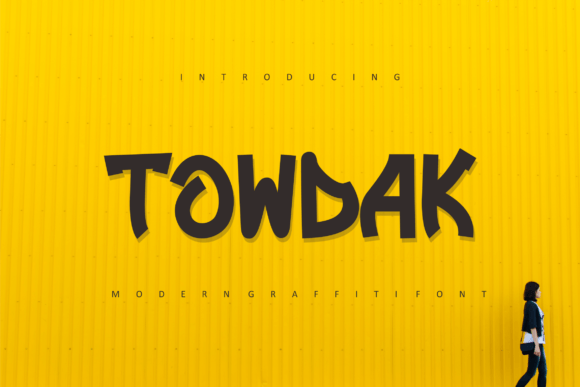
**Introducing Towdak Font: The Gateway to Tech Logo Innovation**
Prepare to witness the birth of extraordinary tech logos, fueled by the boundless creativity of Towdak Font. This modern and audacious display font is the ultimate weapon in your design arsenal, empowering you to craft logos that ignite the digital realm.
**Unleash Your Typographic Prowess**
Towdak's meticulously crafted characters dance with a captivating rhythm, defying the ordinary and embracing the remarkable. Its distinctive shapes invite you to push boundaries and explore uncharted design territories.
**Forge a Connection with Your Audience**
Each stroke of Towdak Font carries the power to resonate with your target audience. Whether you seek to convey a sense of innovation, playfulness, or cutting-edge sophistication, this font possesses the versatility to mirror your brand's essence.
**Ignite Your Imagination**
Towdak Font is not merely a collection of letters; it's an invitation to unleash your imagination. Its quirky nature nurtures creativity, enabling you to envision logos that break free from the mundane and ascend to the extraordinary.
**Empower Your Brand's Identity**
In the competitive digital landscape, your tech logo serves as the cornerstone of your brand's identity. With Towdak Font, you possess the power to create a logo that commands attention, evokes admiration, and establishes an unwavering connection with your audience.
**Experience the Towdak Revolution**
Join the countless designers and businesses who have harnessed the transformative power of Towdak Font. Witness firsthand how this exceptional font elevates your designs to new heights, unlocking a world of creative possibilities.
**Embrace the Future of Tech Logos**
Towdak Font is more than just a font; it's a gateway to the future of tech logos. Its modern aesthetic and playful spirit align perfectly with the ever-evolving digital landscape. Embrace Towdak and watch your brand soar to unprecedented heights.